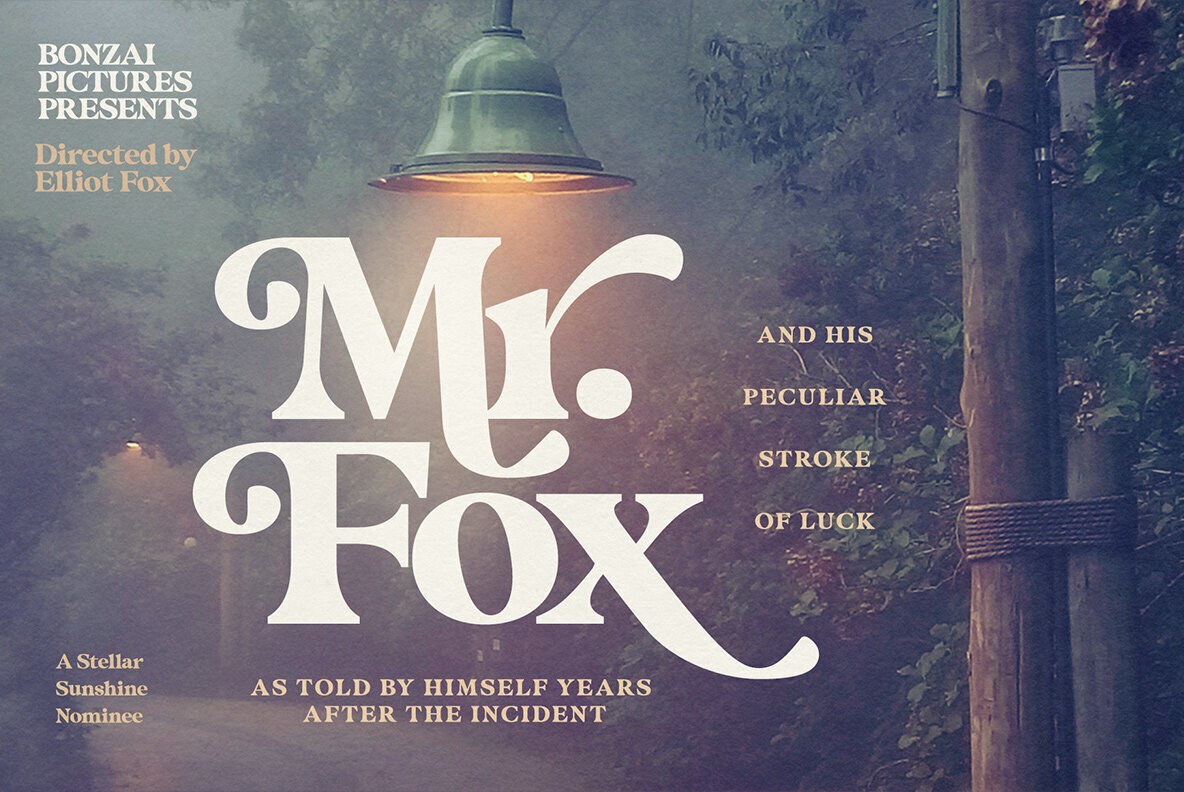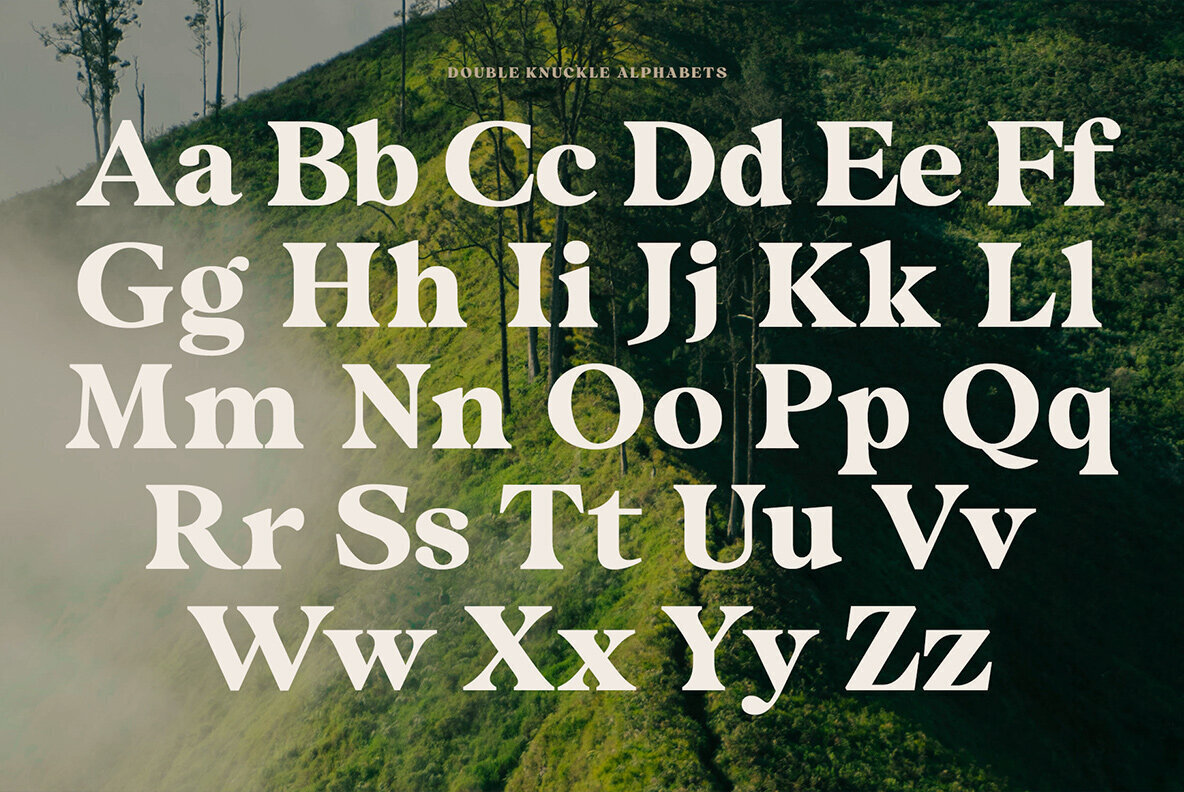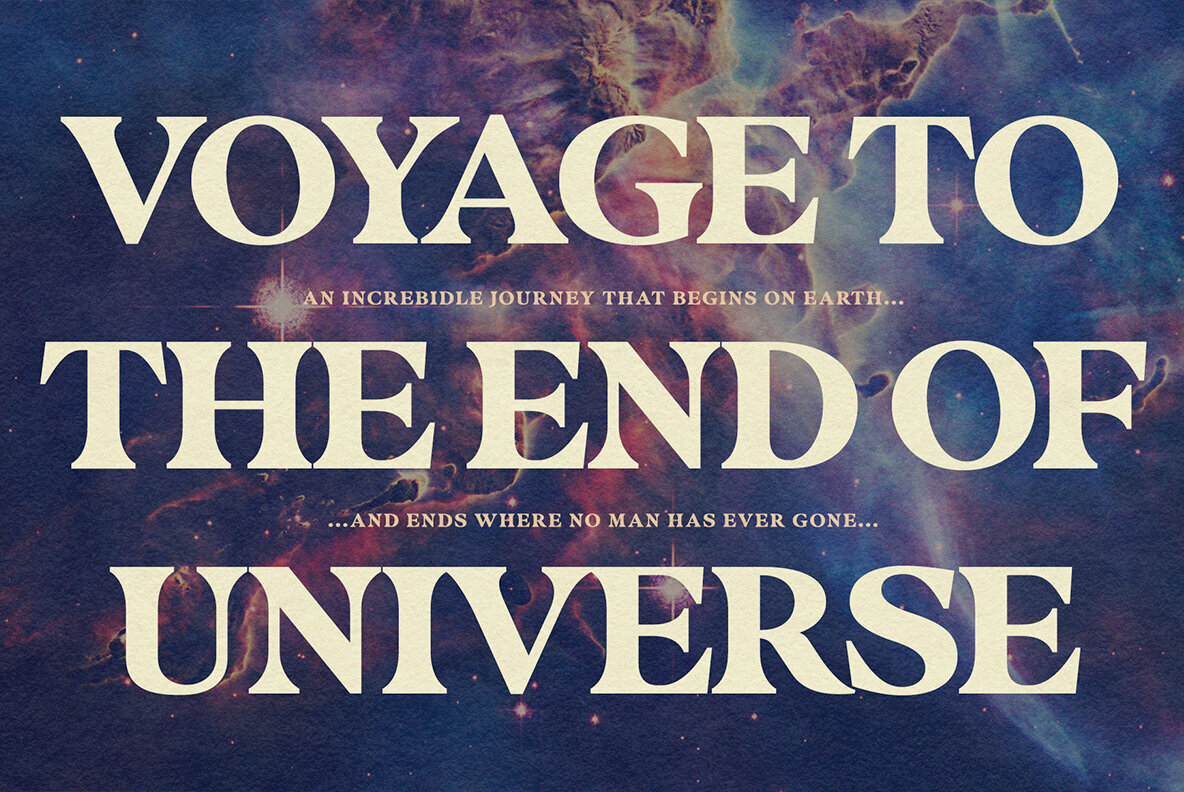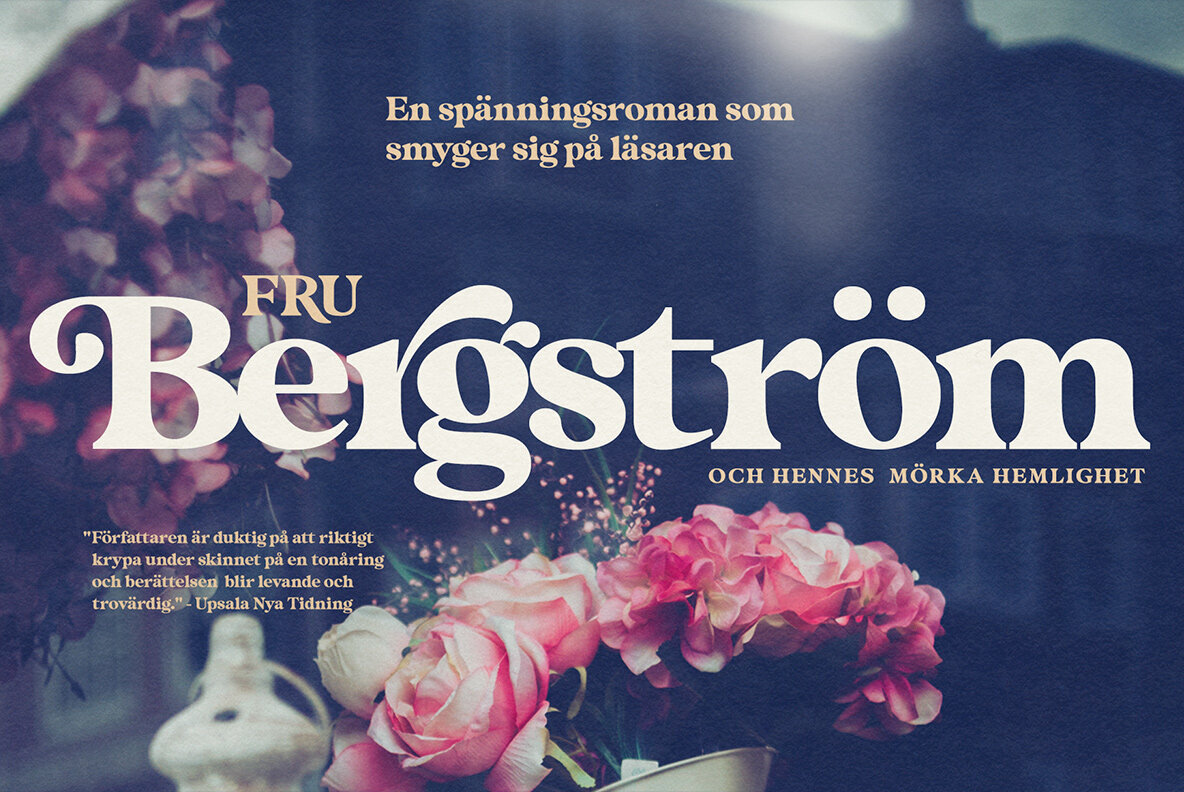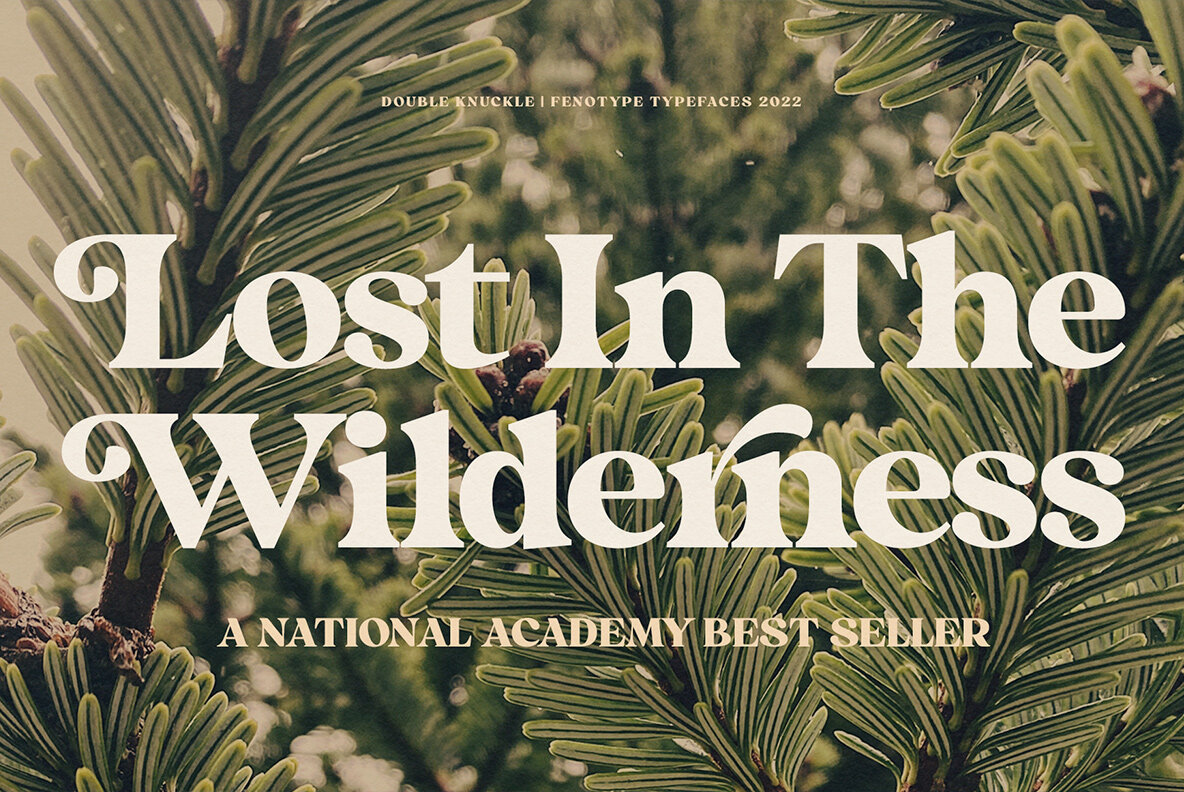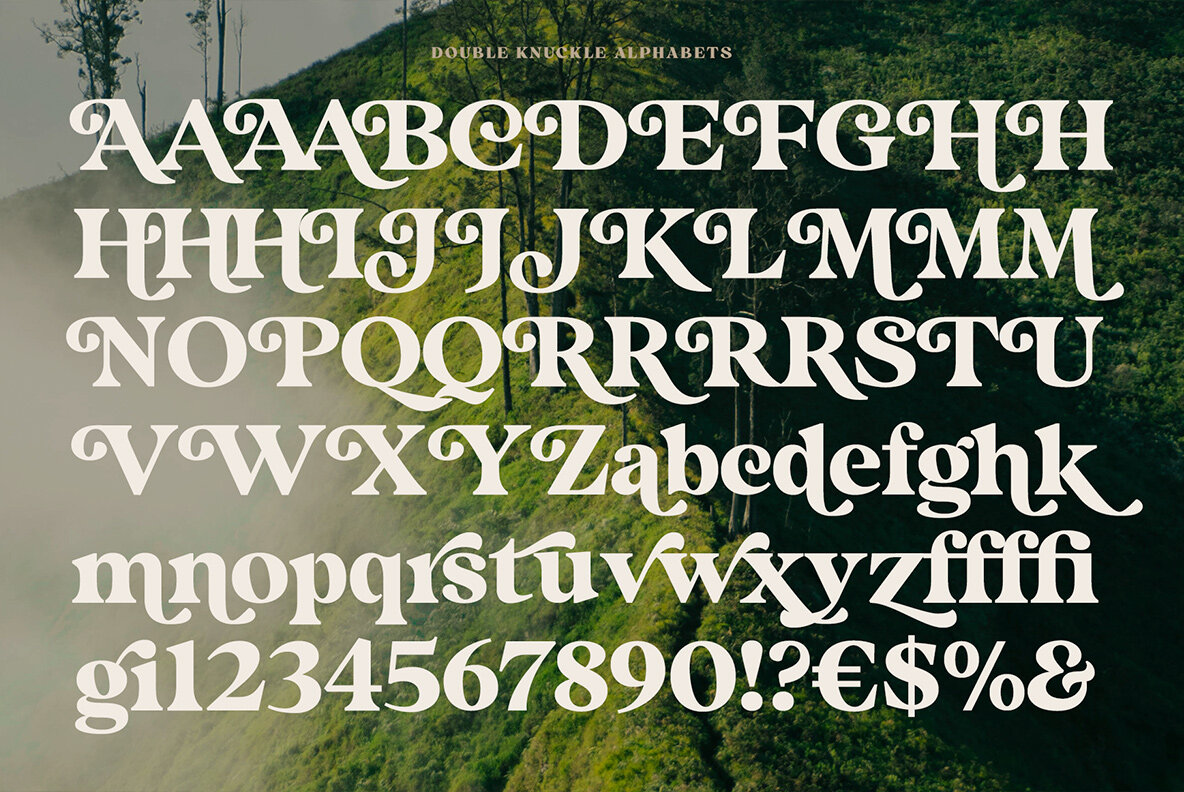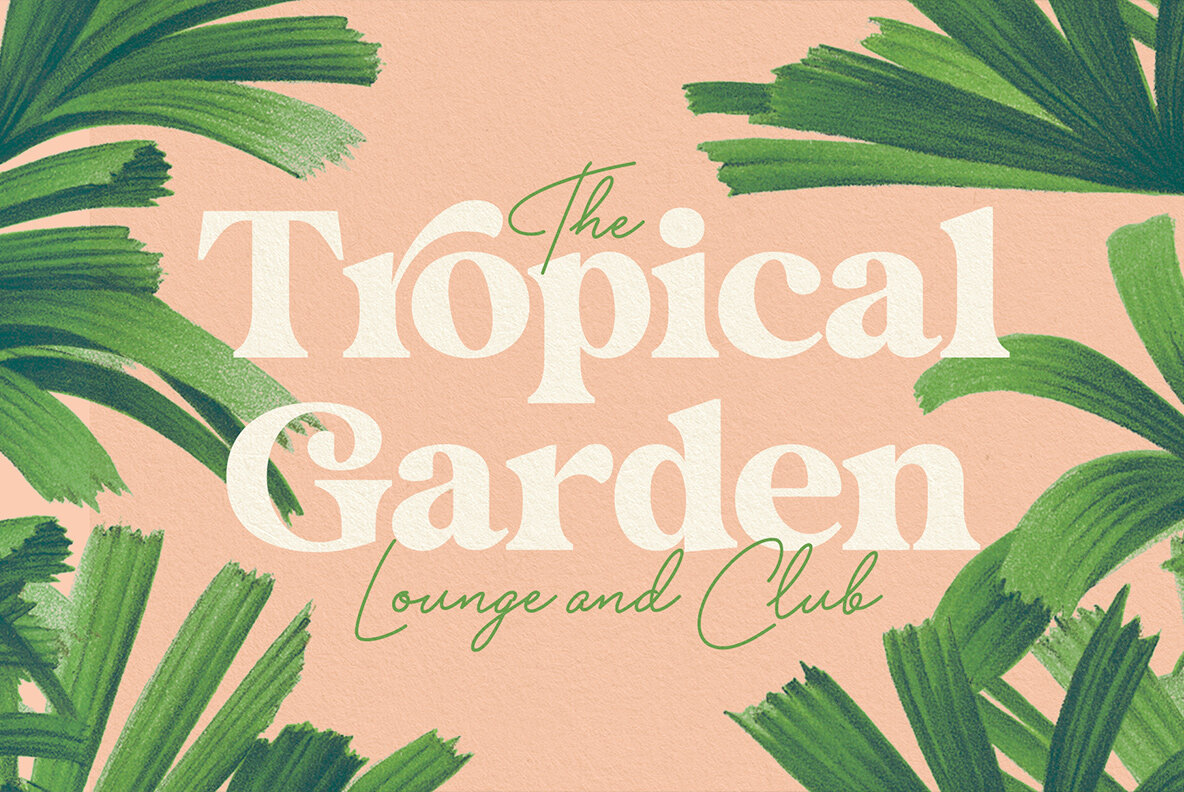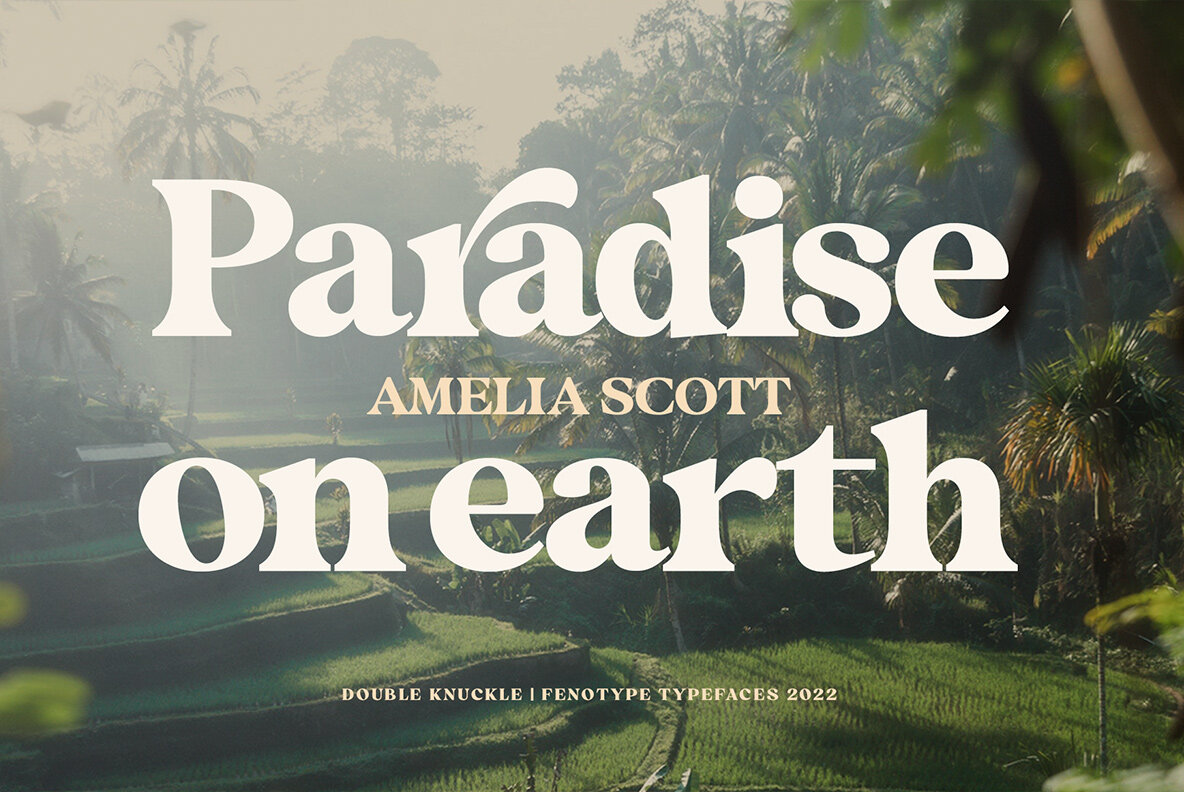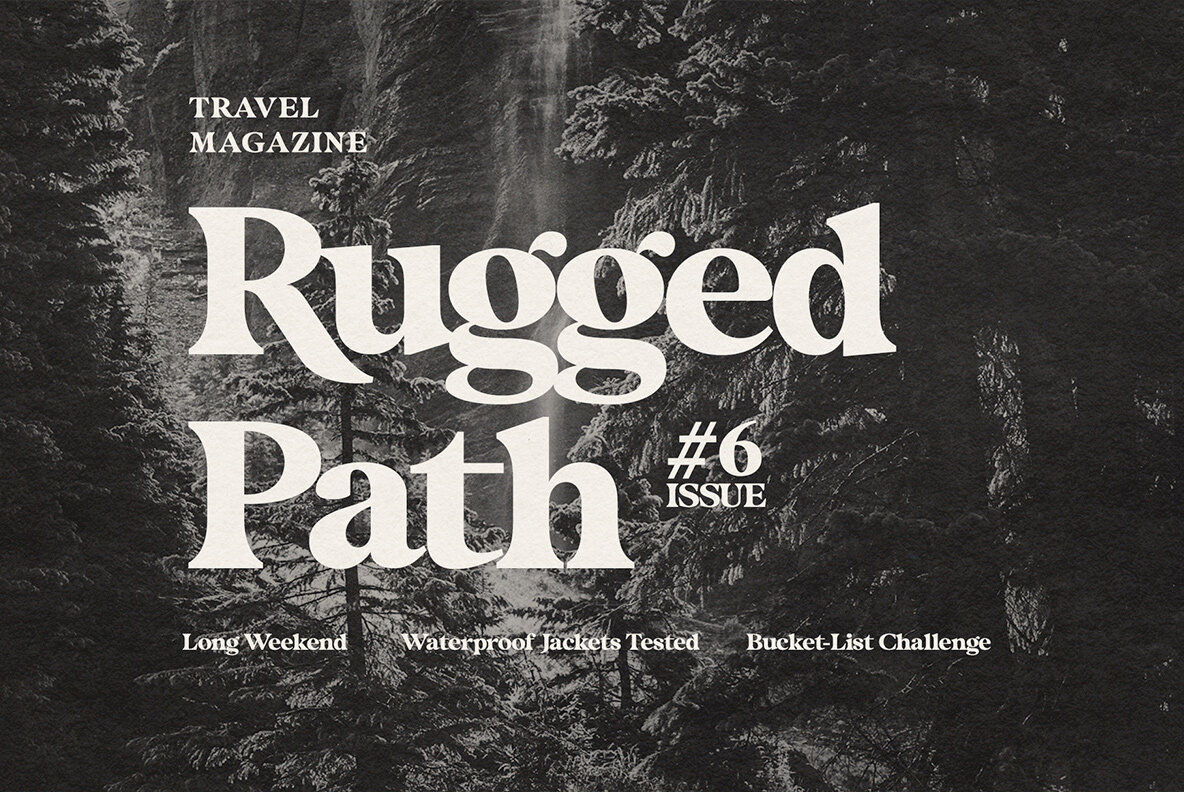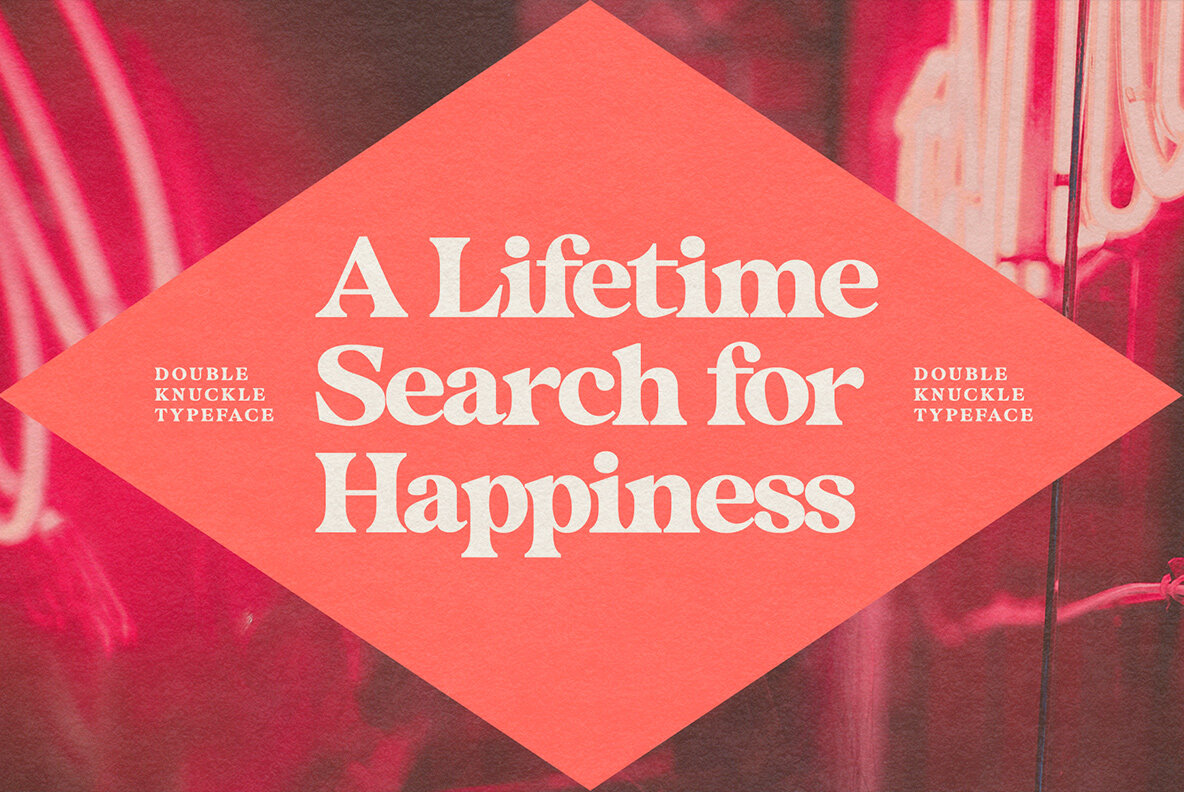
Double Knuckle 1
Double Knuckle is an outstanding bold serif typeface with high contrast, wide character forms and high x-height. Double Knuckle is excellent for headlines, packaging, magazines, posters and advertising, as well as any other display use.
Double Knuckle comes with a set of OpenType features: Contextual Alternates and Standard Ligatures are automatically on for certain character pairs. In addition it has over 70 alternative characters set in Swash, Stylistic and Titling Alternates.